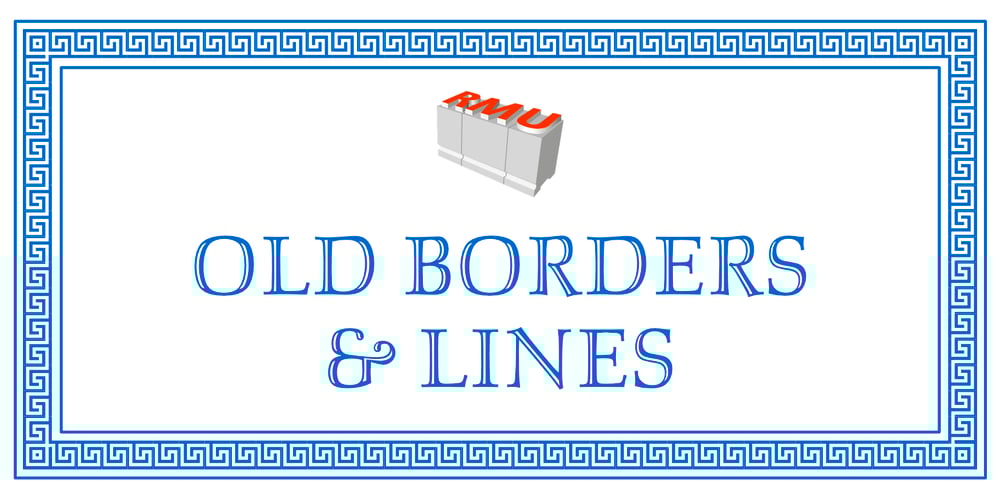
Old Borders And Lines Font Family was designed by Ralph M. Unger and published by RMU. Old Borders And Lines contains 1 styles and family package options. A special offer by RMU Typedesign for those who like it old-style. Now finally with the possibility to create a Greek Meander frame.